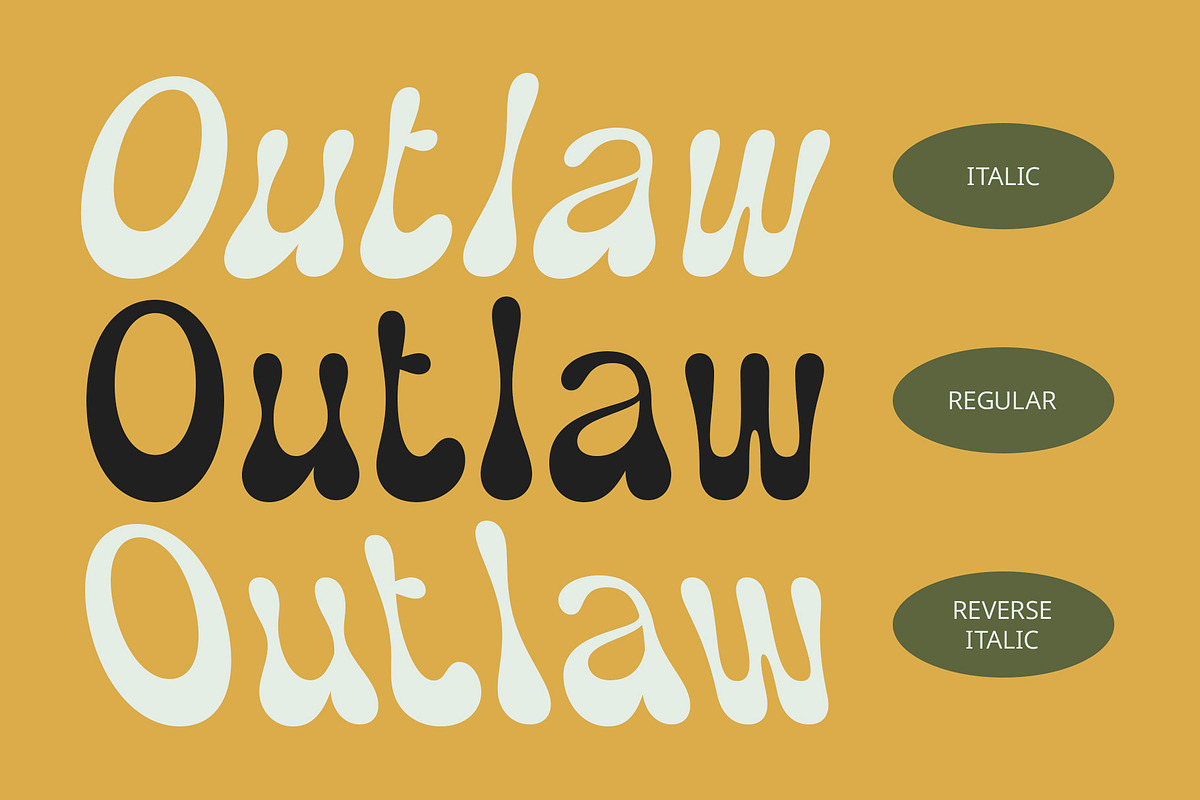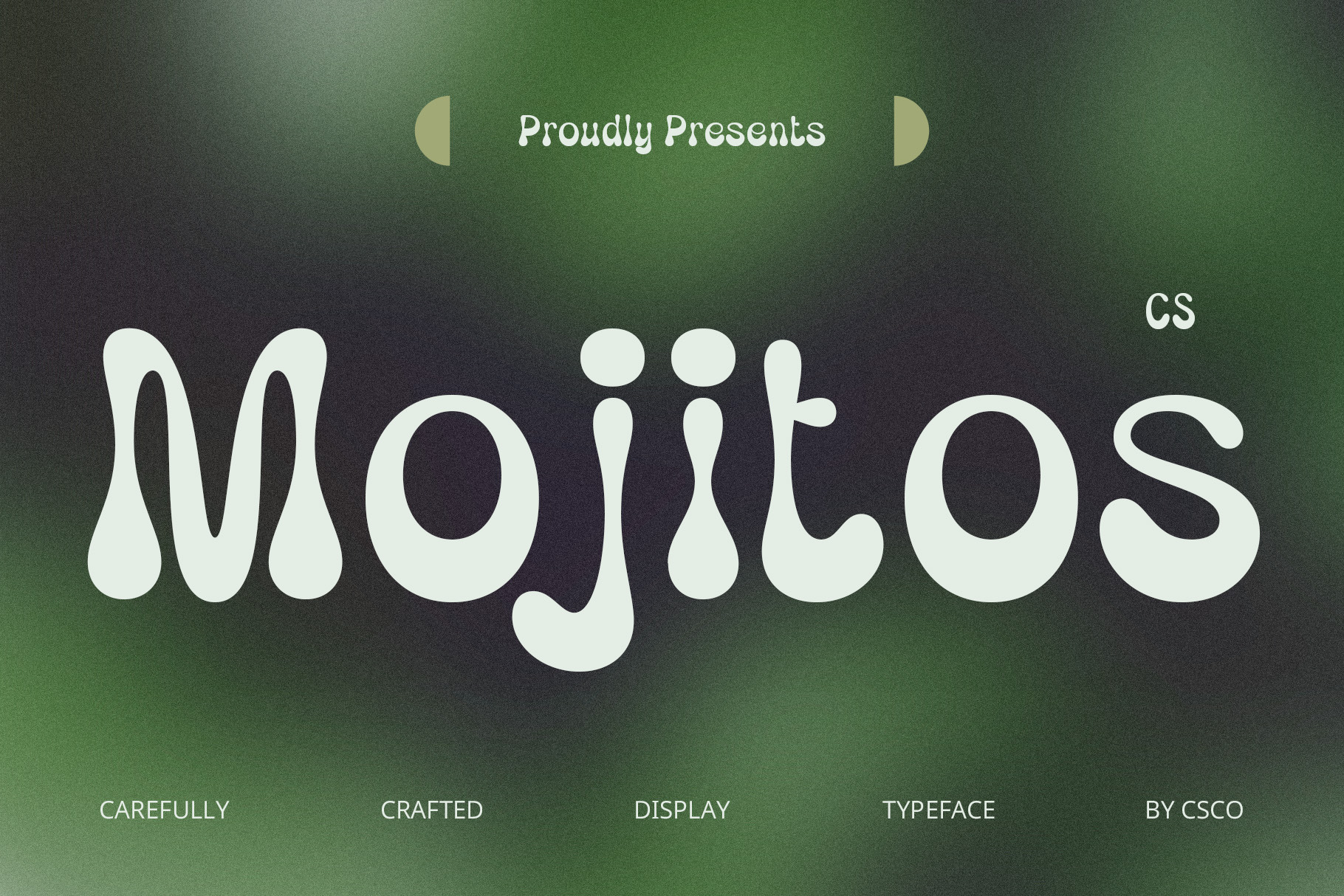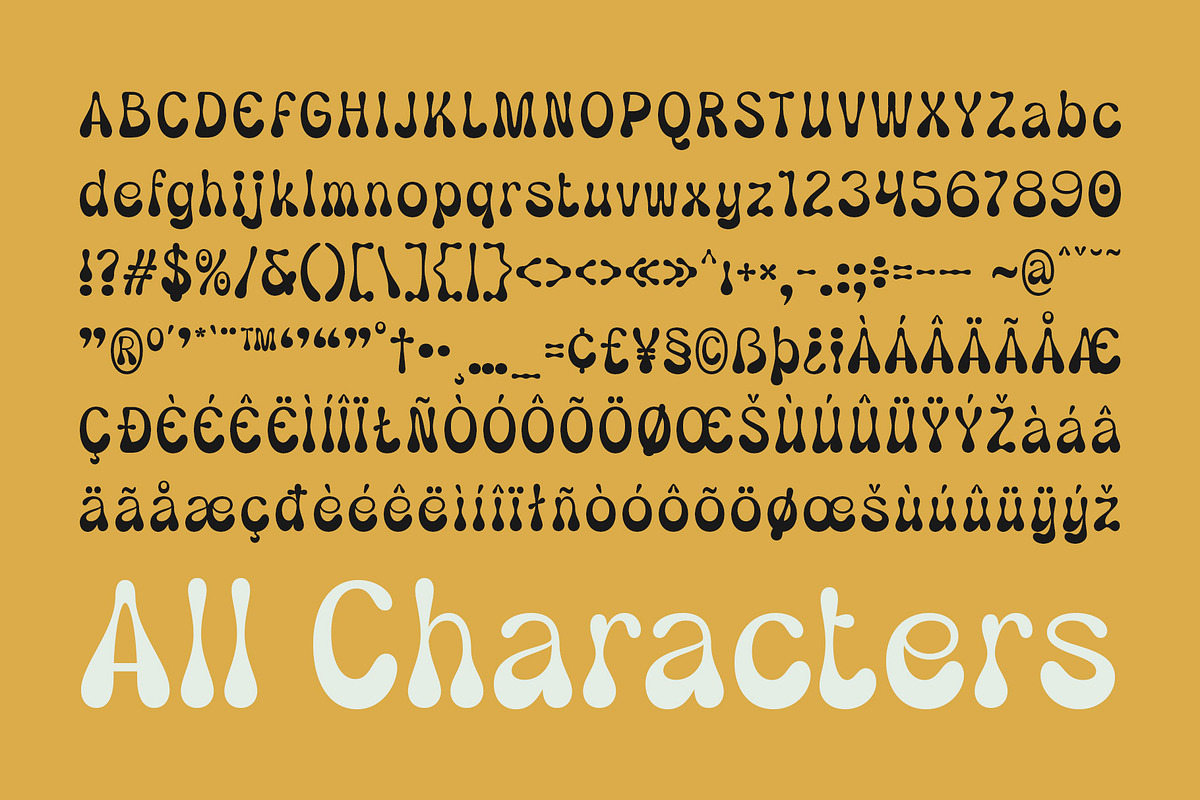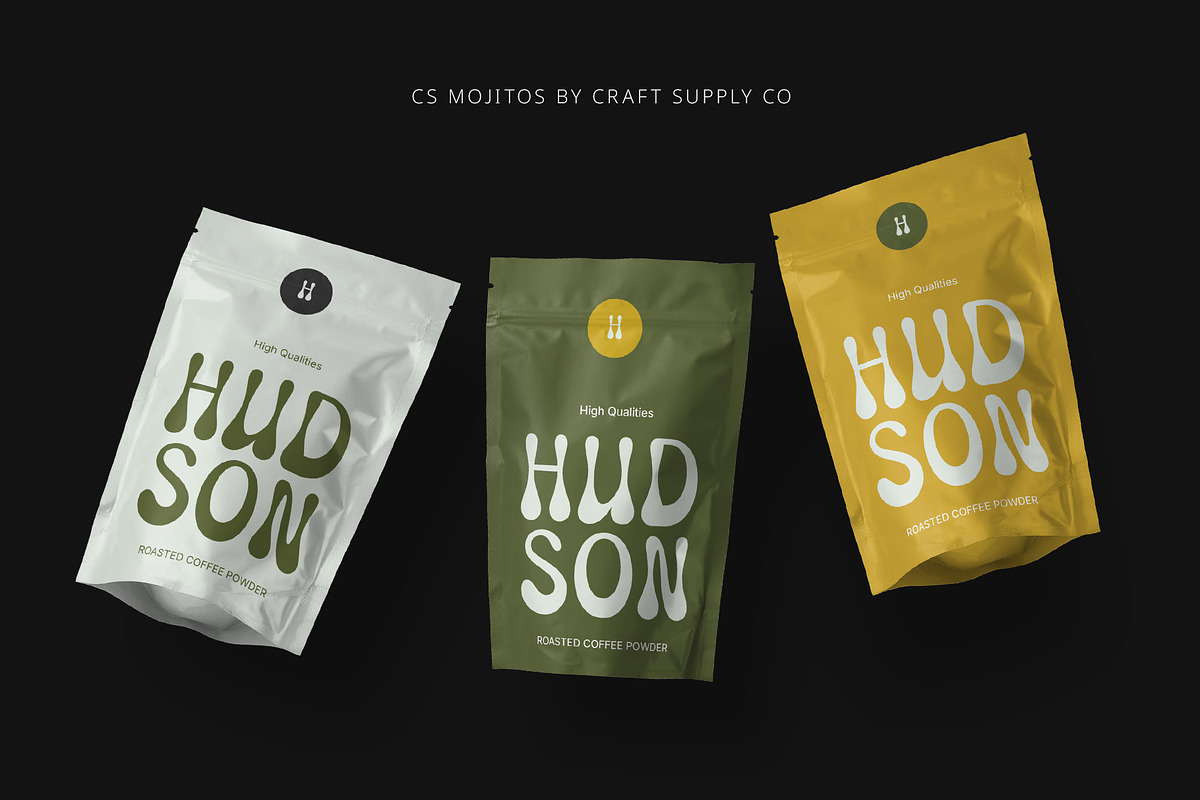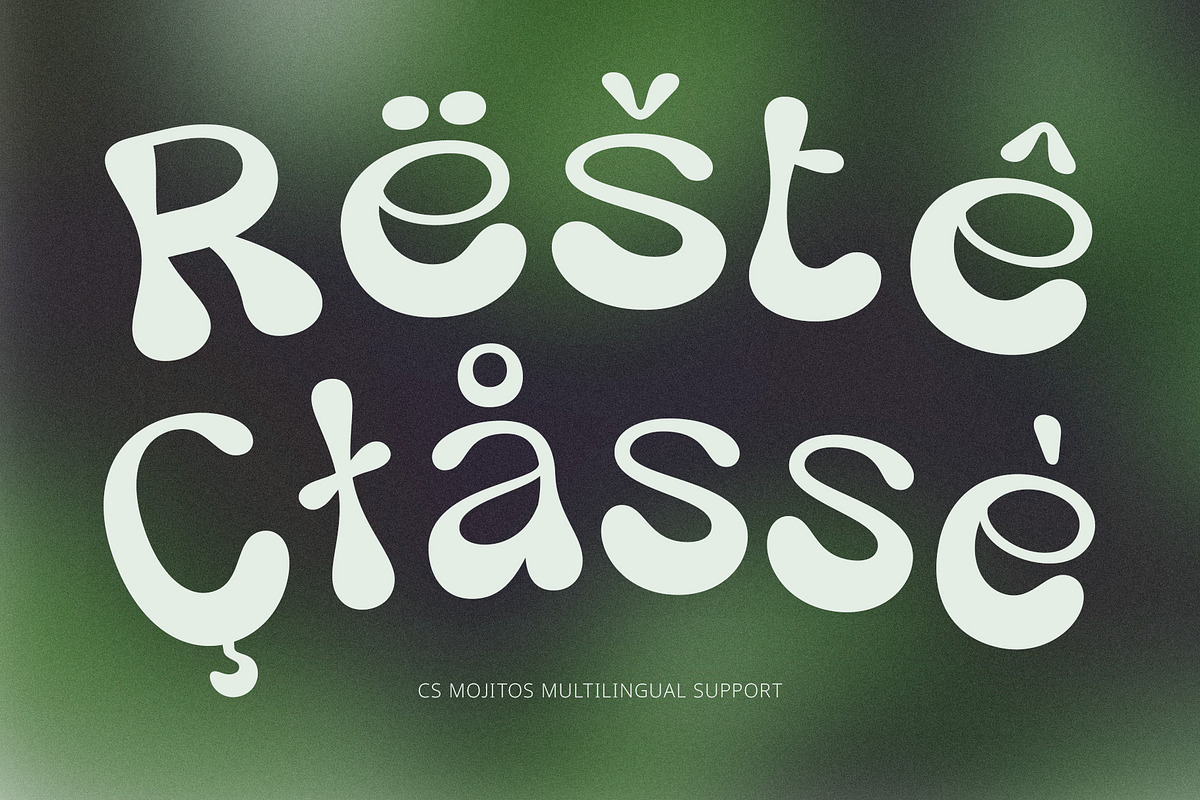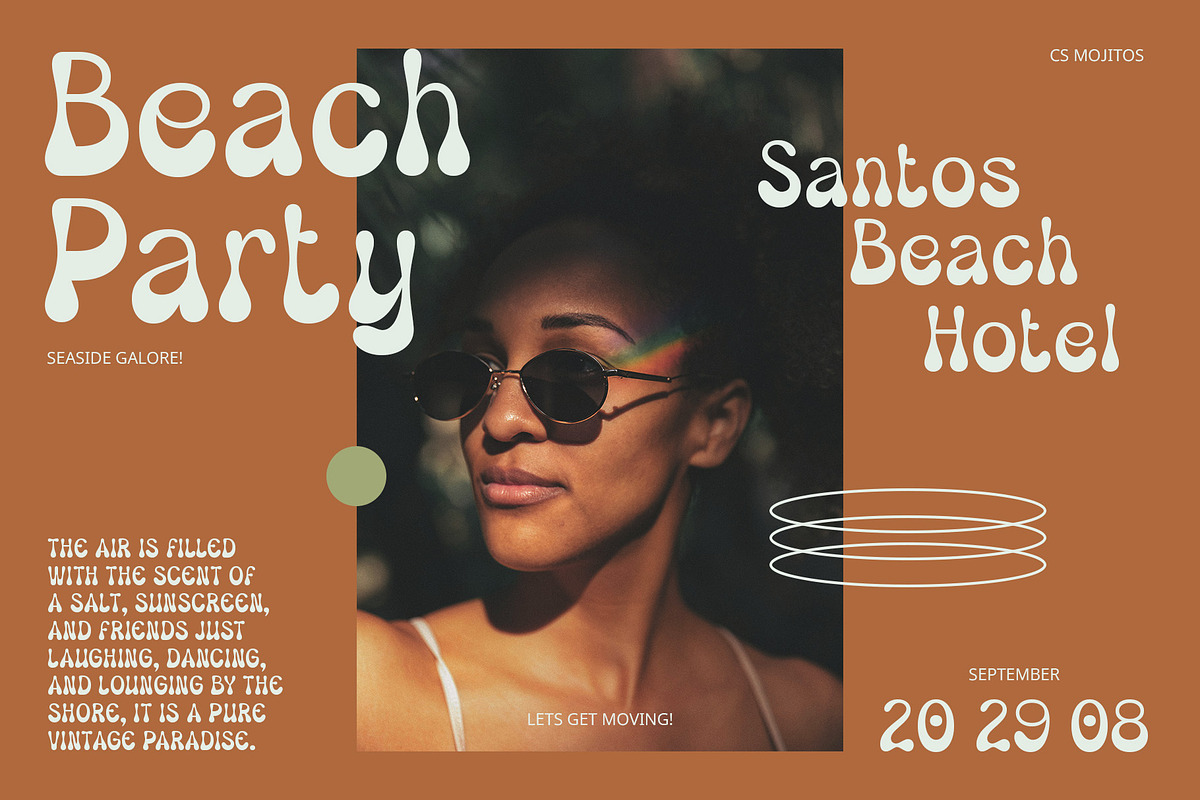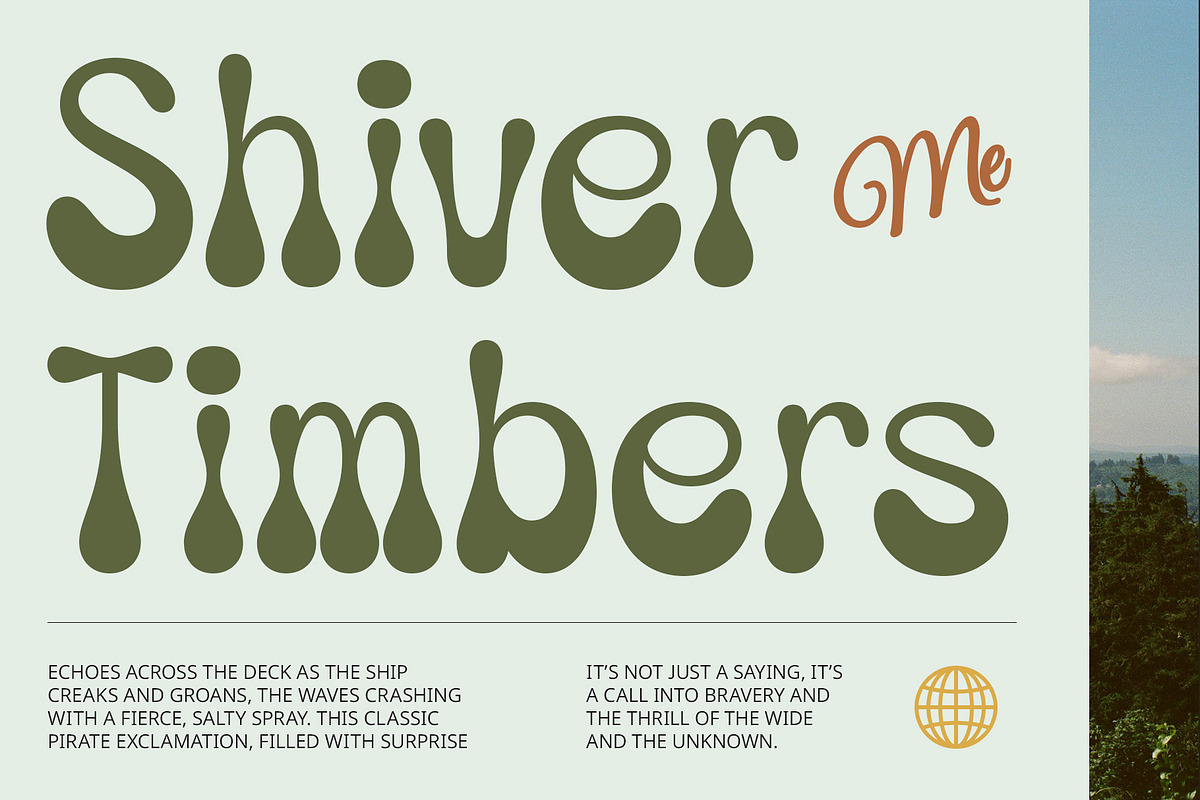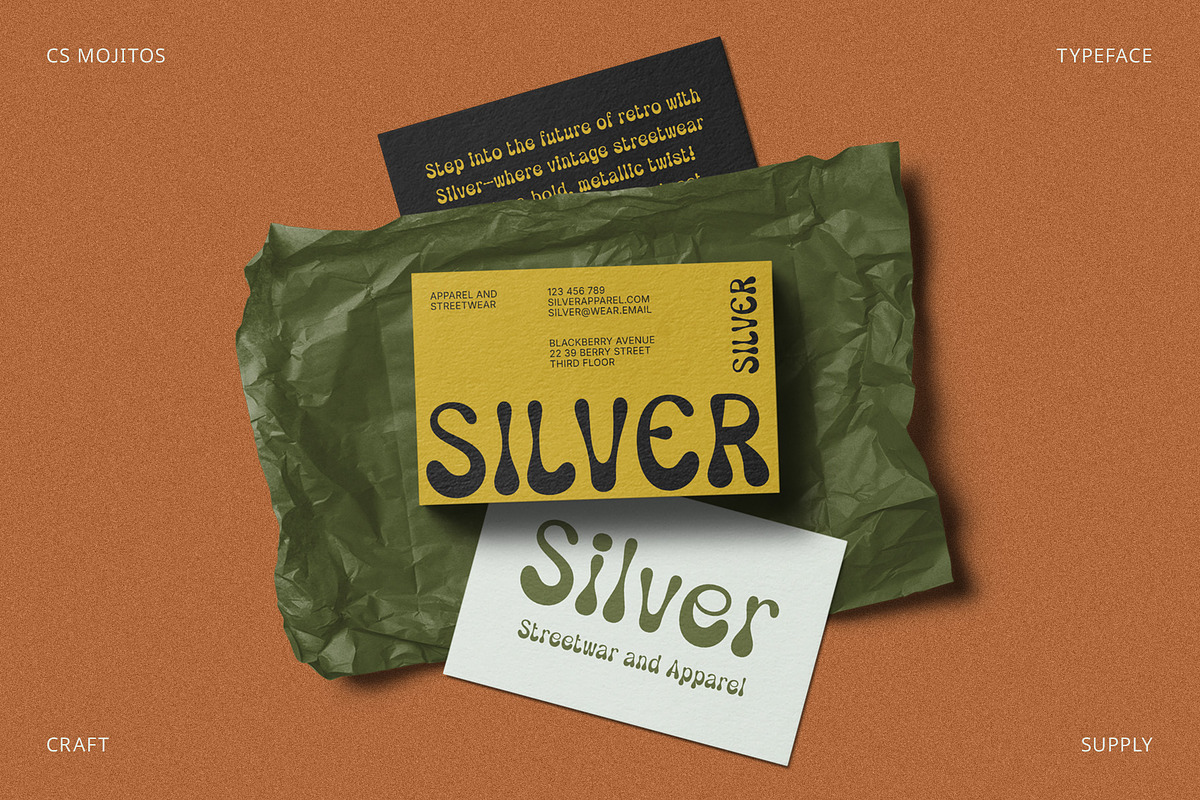
CS Mojitos – Groovy Font
CS Mojitos – Groovy Font: A Retro Vibe That Grooves
Bold and Playful 70s-Inspired Display Font CS Mojitos is a groovy display font that channels the lively spirit of the 1970s with its bold, flowing letterforms and exaggerated curves. Inspired by the iconic typography of the era, this font features playful shapes and rounded edges that exude an unmistakable retro charm. Its funky, wavy lines create a sense of movement, making it the perfect choice for designs that want to convey energy, fun, and creativity.
Nostalgic 70s Energy With its bold forms and exaggerated curves, CS Mojitos captures the free-spirited, vibrant atmosphere of the 70s. The design offers a sense of nostalgia, instantly transporting your audience to an era filled with colorful freedom, upbeat rhythms, and artistic expression. Whether it’s for retro music branding or playful design projects, this font embodies the era’s unique visual aesthetic while offering a fresh, modern appeal.
Perfect for Music and Retro Designs CS Mojitos is ideal for music posters, album covers, event promotions, and any design that aims to evoke a lively, fun, and dynamic feel. Its bold character makes it a great choice for designs that need to stand out, whether you’re promoting a disco night, a music festival, or an art event. This font brings a sense of motion and excitement, channeling the groovy, carefree vibes of the 70s with ease.
- CS Mojitos Regular
- CS Mojitos Italic
- CS Mojitos Reverse Italic